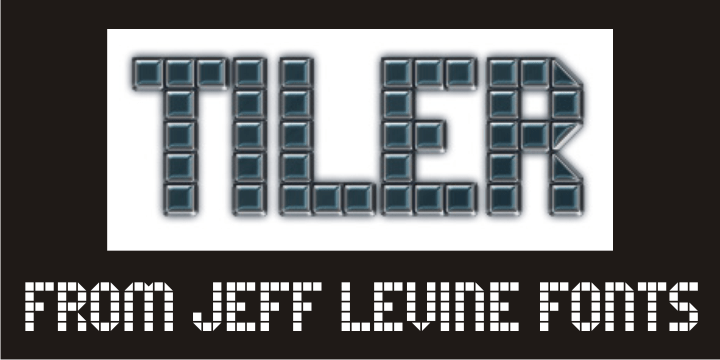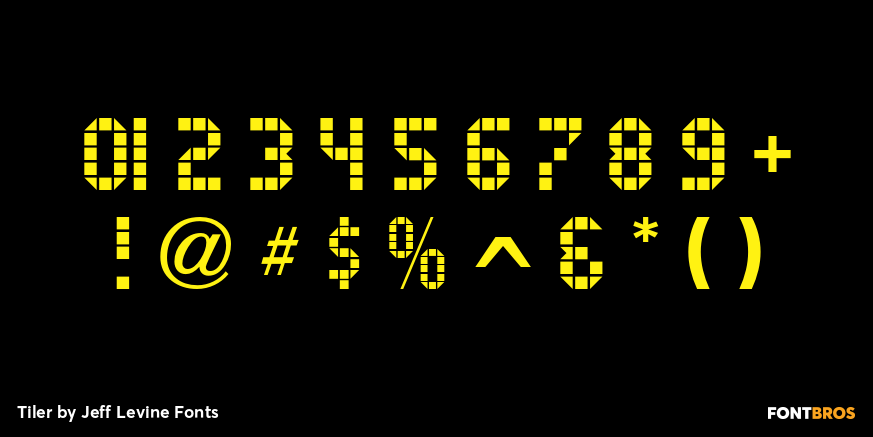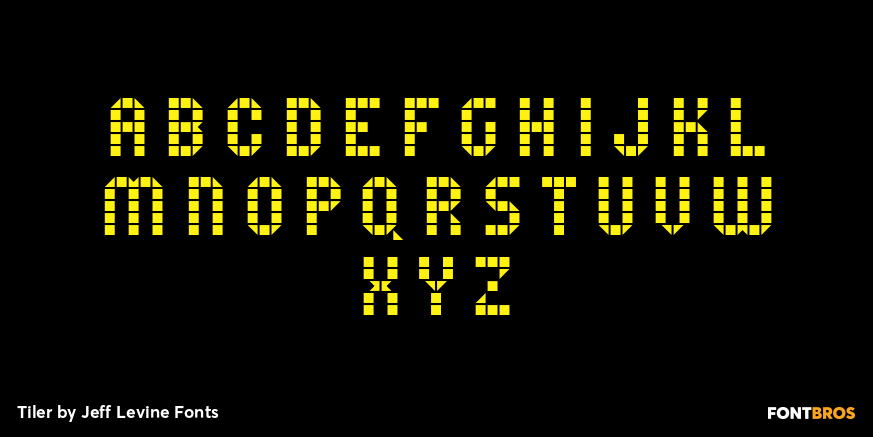
Tiler
Tiler JNL is a novelty font with geometric styling. It use can be as diverse as an ad for wall or floor tile to conveying a modular feel within a futuristic setting to signage on the wall of an old-time subway station.
Strictly a headline font, the best results are achieved in large format projects.
Tiler JNL Regular by Jeff Levine Fonts